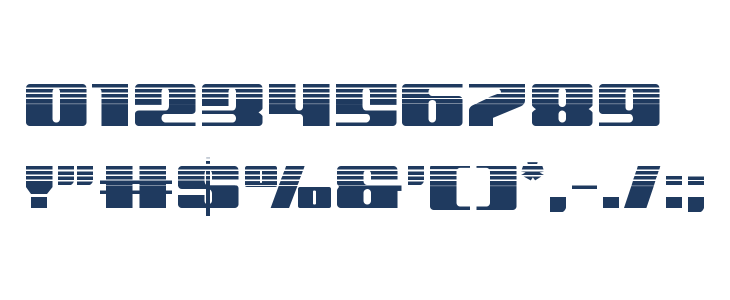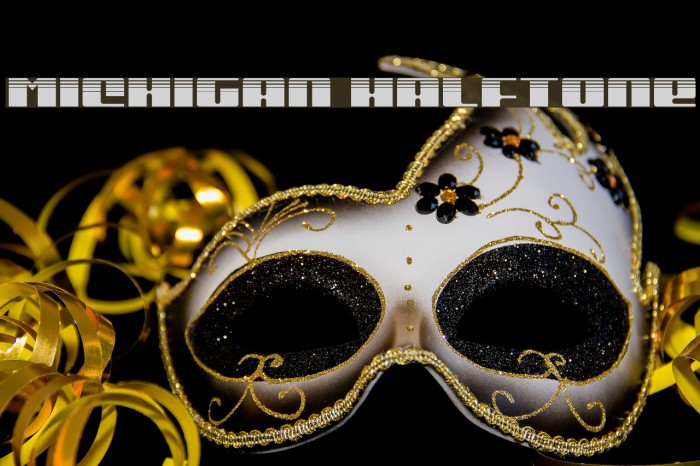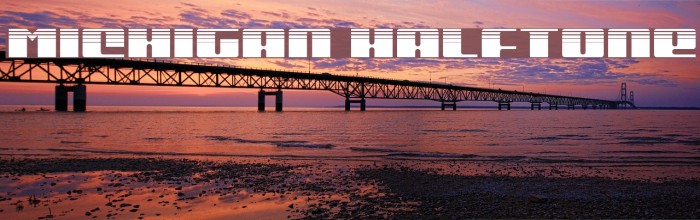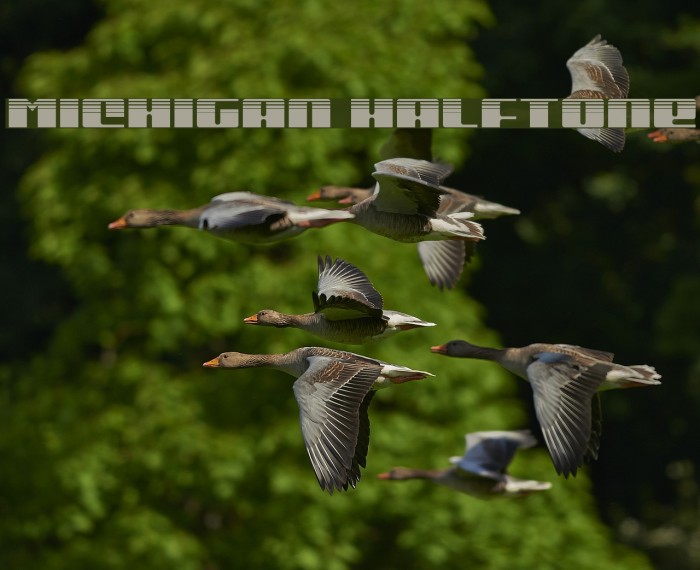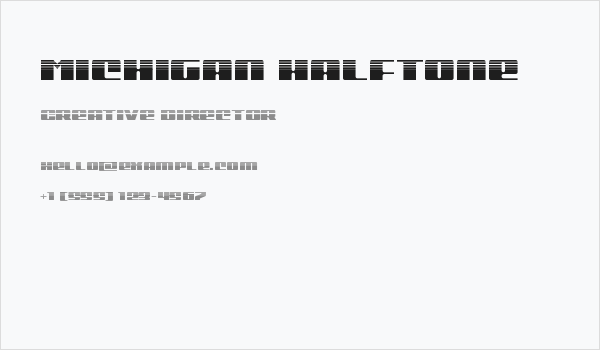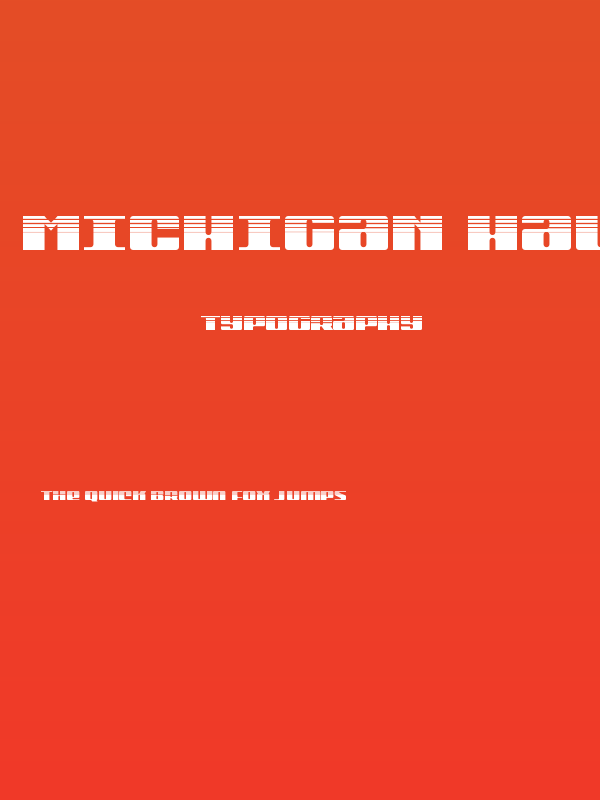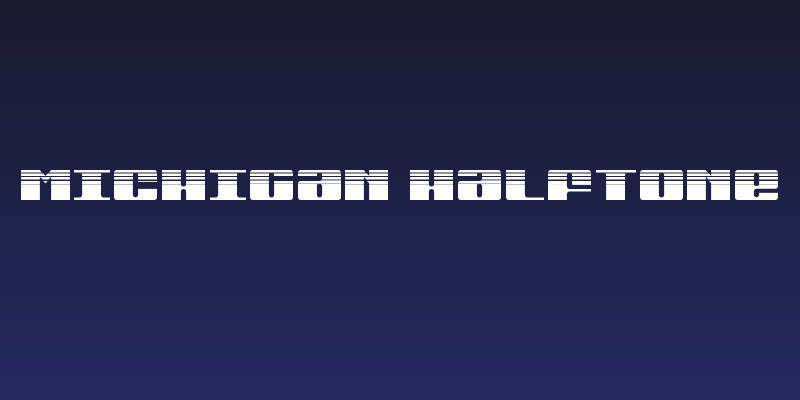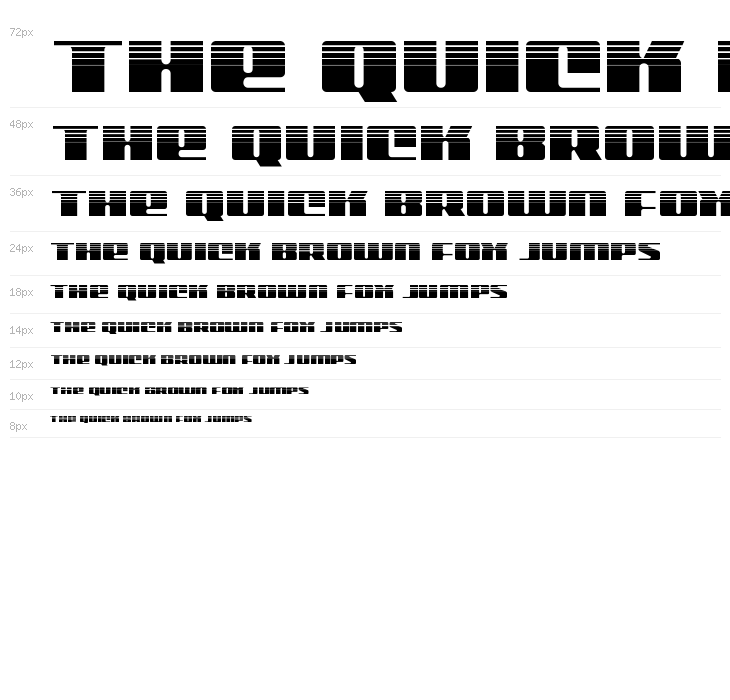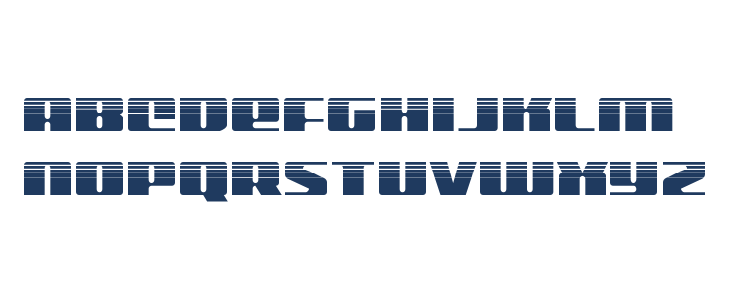
Michigan Halftone Font
Michigan Halftone Description
This font features a bold, geometric design with a halftone effect that gives it a modern and edgy appearance. The characters are constructed with thick, block-like shapes that are intersected by horizontal lines, creating a sense of movement and dynamism. The uppercase and lowercase letters maintain a consistent style, with the halftone lines adding texture and depth. The numerals and special characters follow the same design principles, ensuring uniformity across all glyphs. This font is particularly striking due to its high contrast and unique visual texture, making it stand out in any design context.